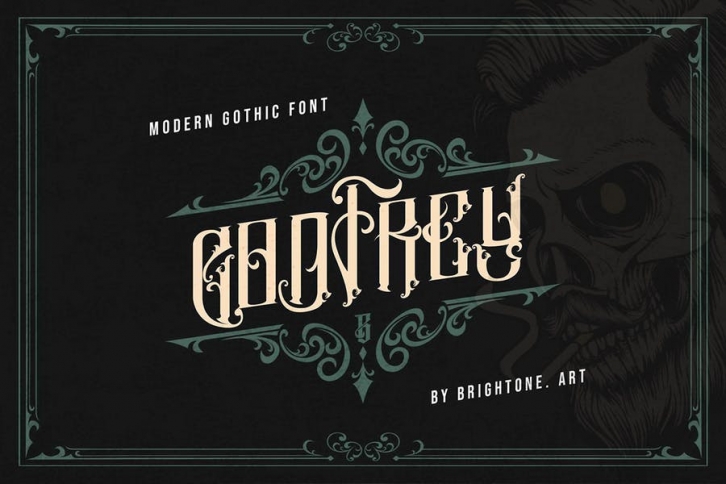
Godfrey - Classic Blackletter FONT Download
GODFREY is blackletter font with classic style includes uppercase letters, numerals, a large range of punctuation and multilingual support. blackletter font with tattoo style for your logo lettering, shirt design, logo, label, packaging, sticker, branding etc